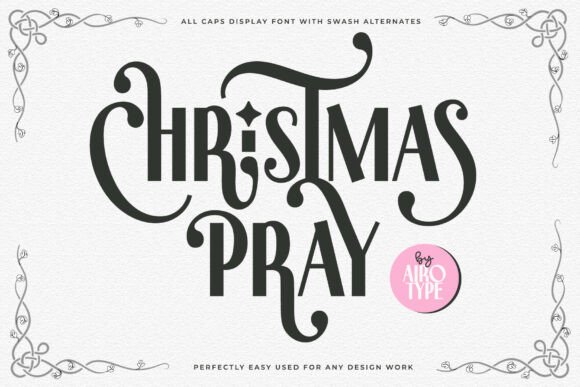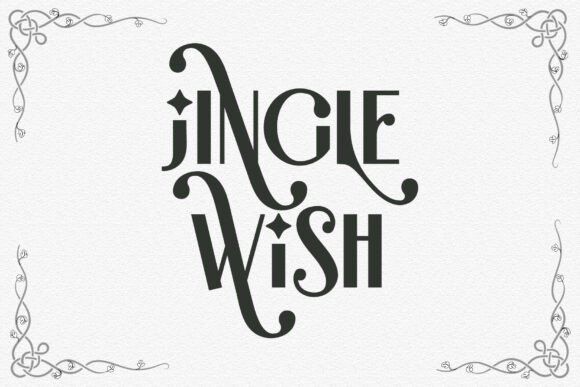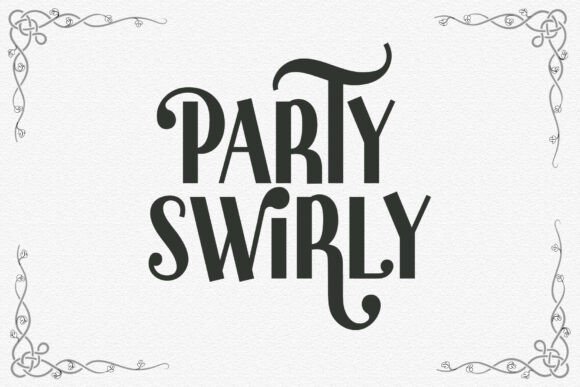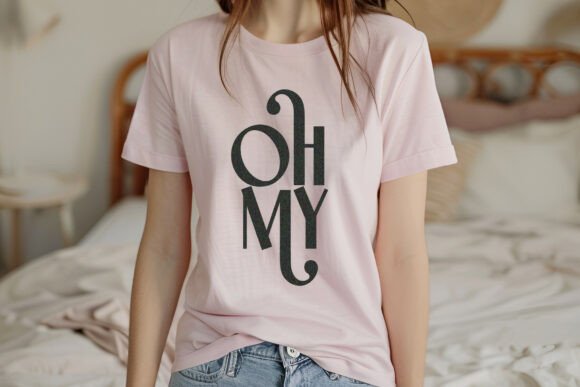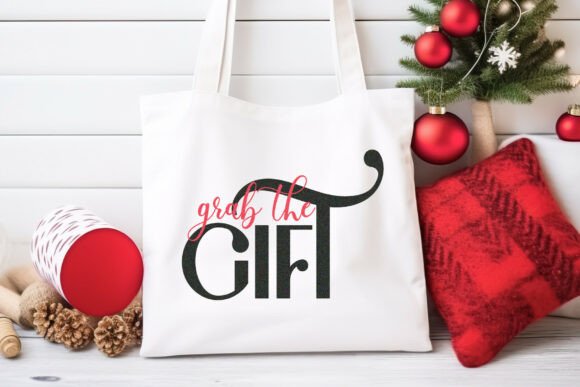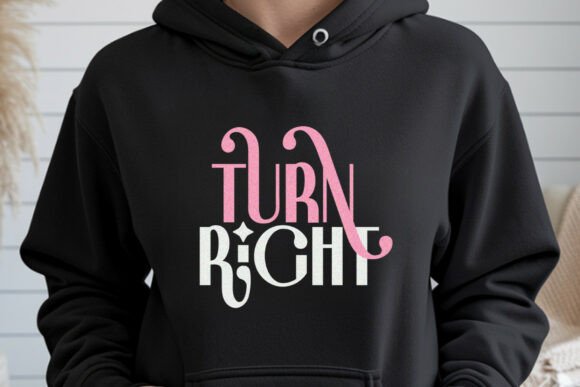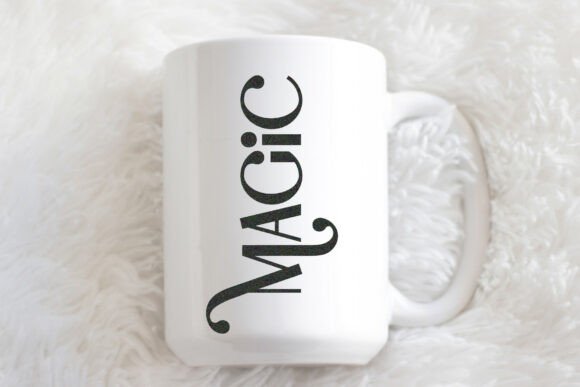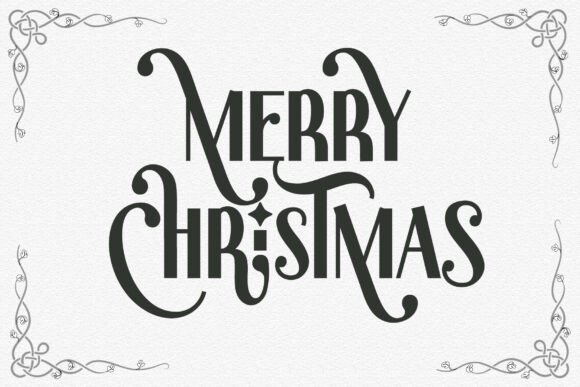
Christmas Pray Font
Christmas Pray is all caps display font, that represents modern and elegant vibes. Christmas Pray font has extra alternate glyphs or swash that can be accessed with Font Book (Mac) or Character Map UWP (PC). Make sure you know how to access extra glyphs in the program you are using.
This is suitable font for any projects with modern swirl touch, such as logo, Christmas design, crafting, wedding invitation, poster, branding, sticker, sublimation, quotes, and many others.